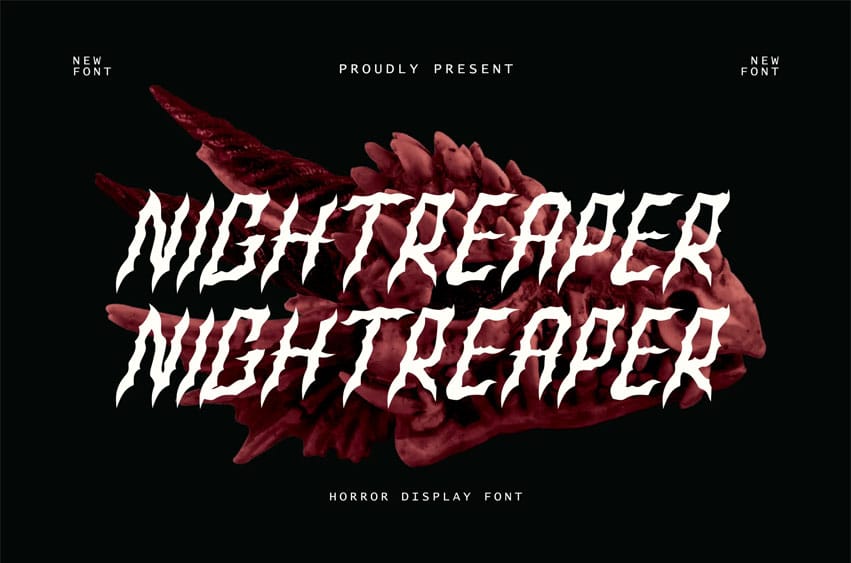
Nightreaper Font is a horror font that fuses the dark, sinister aesthetics of the genre with a unique italicized style, enhancing its sense of speed, aggression, and looming menace. The name Nightreaper evokes imagery of a shadowy, death-bringer moving swiftly through the night, silently hunting its prey.
The italicized form gives the font an intense, dynamic slant, as if it’s racing toward its target, embodying the relentless pursuit of darkness.